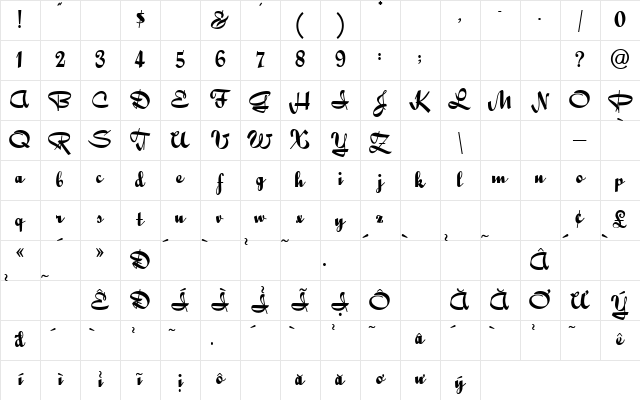
Complete HL Butlatre Regular glyph index. Displaying only characters natively supported by HL Butlatre Regular font.
HL Butlatre is a composed and adaptable typeface that performs quietly and consistently across a wide range of design contexts.